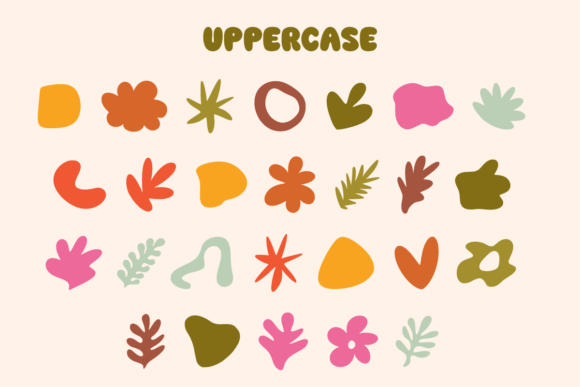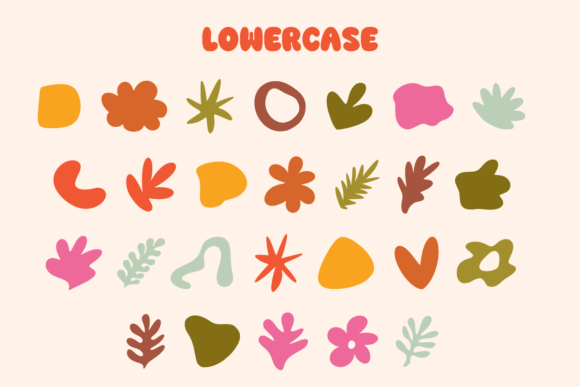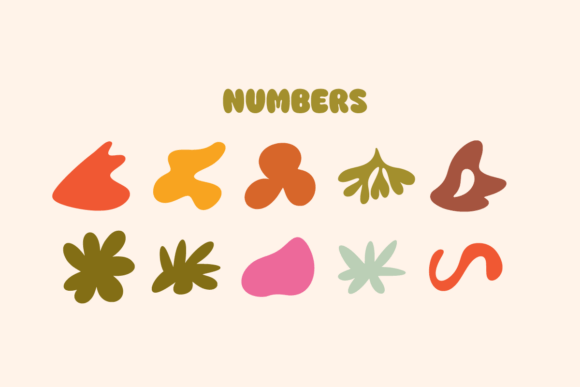
Unleashing Creativity with the Organic Shape Font
Have you ever stared at a blank canvas, struggling to find the perfect design element to bring your creative project to life? We’ve all been there. But what if you could infuse your work with a dash of whimsy and personality, instantly elevating your design from ordinary to extraordinary?
That’s where the Organic Shape Font comes in – a vibrant, retro-modern collection of decorative, abstract shapes and whimsical flora that will transport your design to a world of playful, bohemian charm. This high-quality design resource is perfect for adding a touch of handmade magic to your brand identities, product packaging, or social media story highlights.
Key Features of Organic Shape Font
- Unique, hand-drawn design with a natural and organic feel, perfect for creative projects that require a touch of elegance.
- Includes a wide range of characters, including uppercase and lowercase letters, numbers, and punctuation marks, making it a versatile design resource.
Honest Review: Organic Shape Font
Here are a few things that worked well for me:
- ✨ The font’s unique, organic shape makes it perfect for adding a touch of whimsy to designs.
- ✨ The high quality of the font ensures it looks crisp and clear, even at larger sizes.
- ✨ The transparent background makes it easy to use in combination with other design elements.
That being said, I did encounter a few limitations:
- ⚠️ The font is a bit limited in terms of style options, so you may find yourself wishing for more customization possibilities.
- ⚠️ The font may not be suitable for formal or professional designs, due to its playful, organic feel.
Overall, I’m really enjoying the Organic Shape Font. It’s a great addition to my design resources, and I’m excited to see how I can use it in future creative projects.
To get the most out of the Organic Shape Font, experiment with different font sizes and colors to create a unique visual effect. Common use cases include logos, branding materials, and creative project titles.